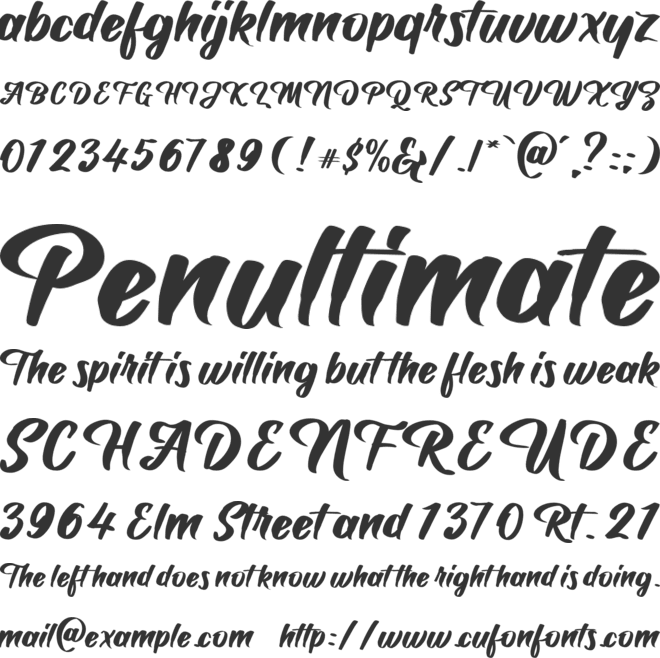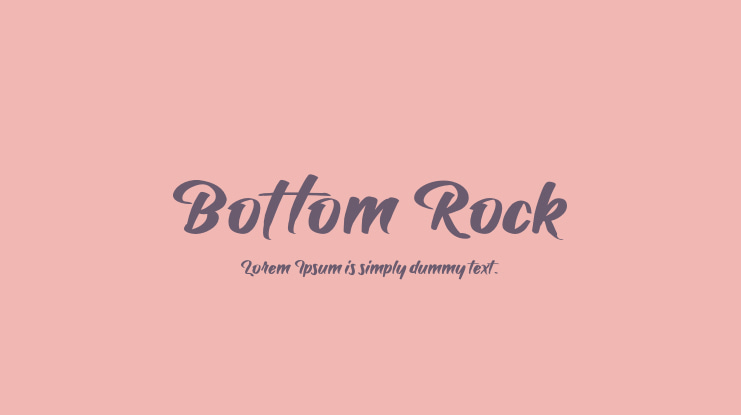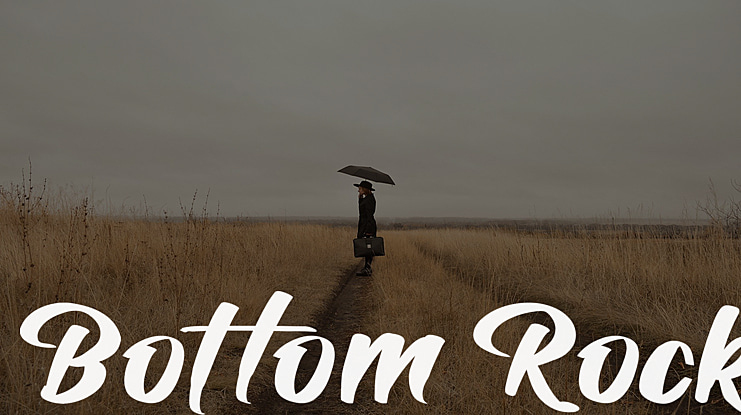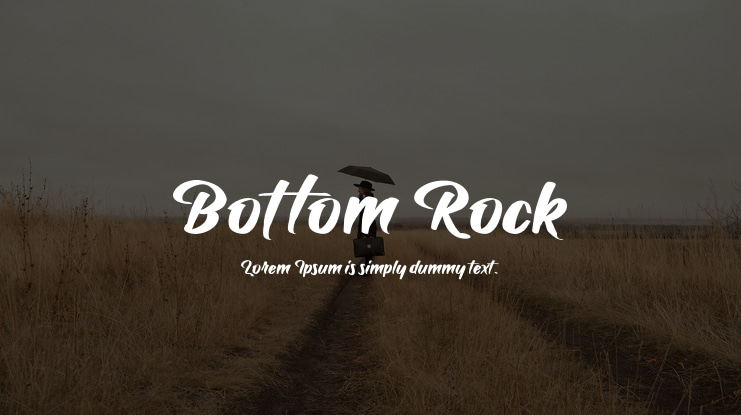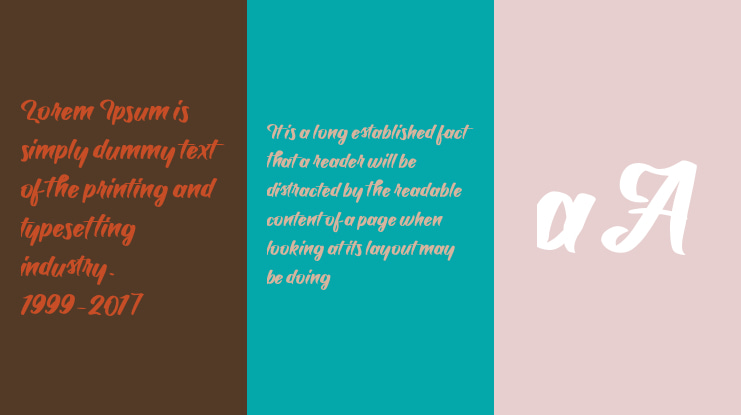
Bottom Rock Font
Introducing our new release, Bottom Rock Modern Display Typeface. This typeset is perfect for brand logo, invitations, greeting card, or even any kind of project. With multilingual feature and style variations, this typeface would further enhance the aestethical aspect of your work.Click our website :https://displaytypefont.com/product/bottom-rock/